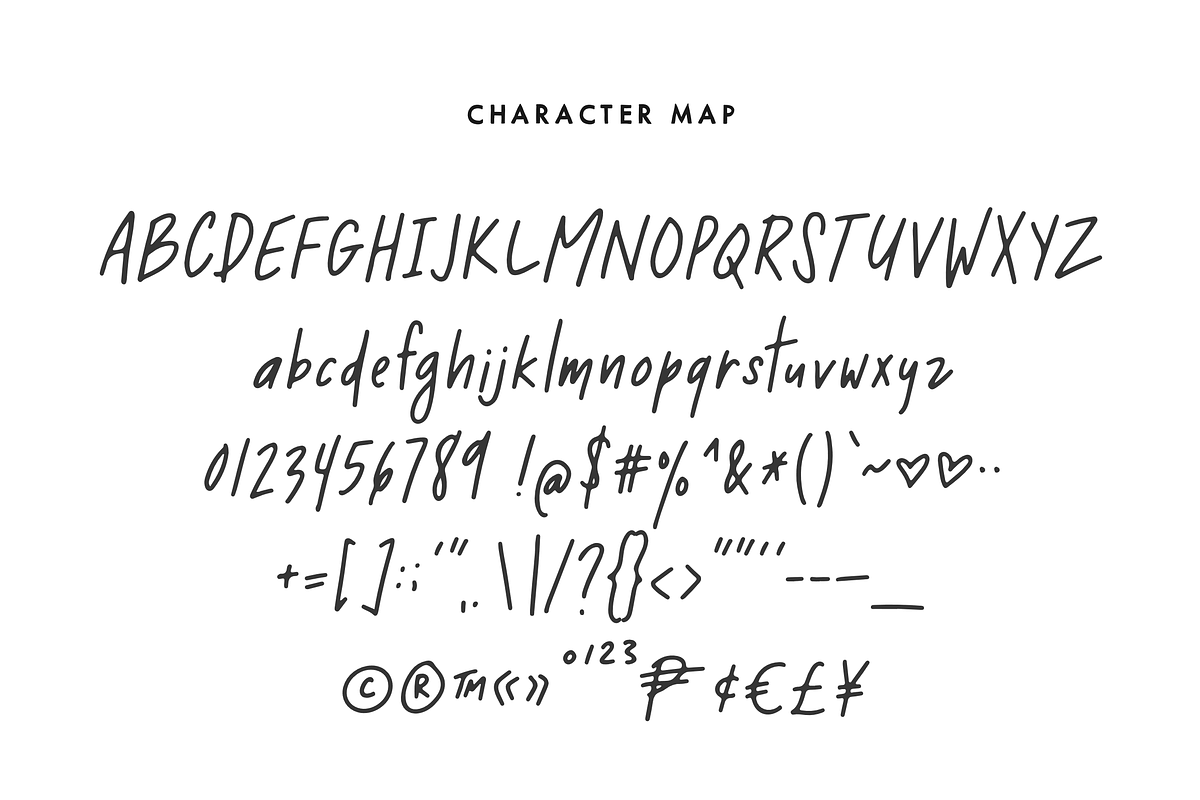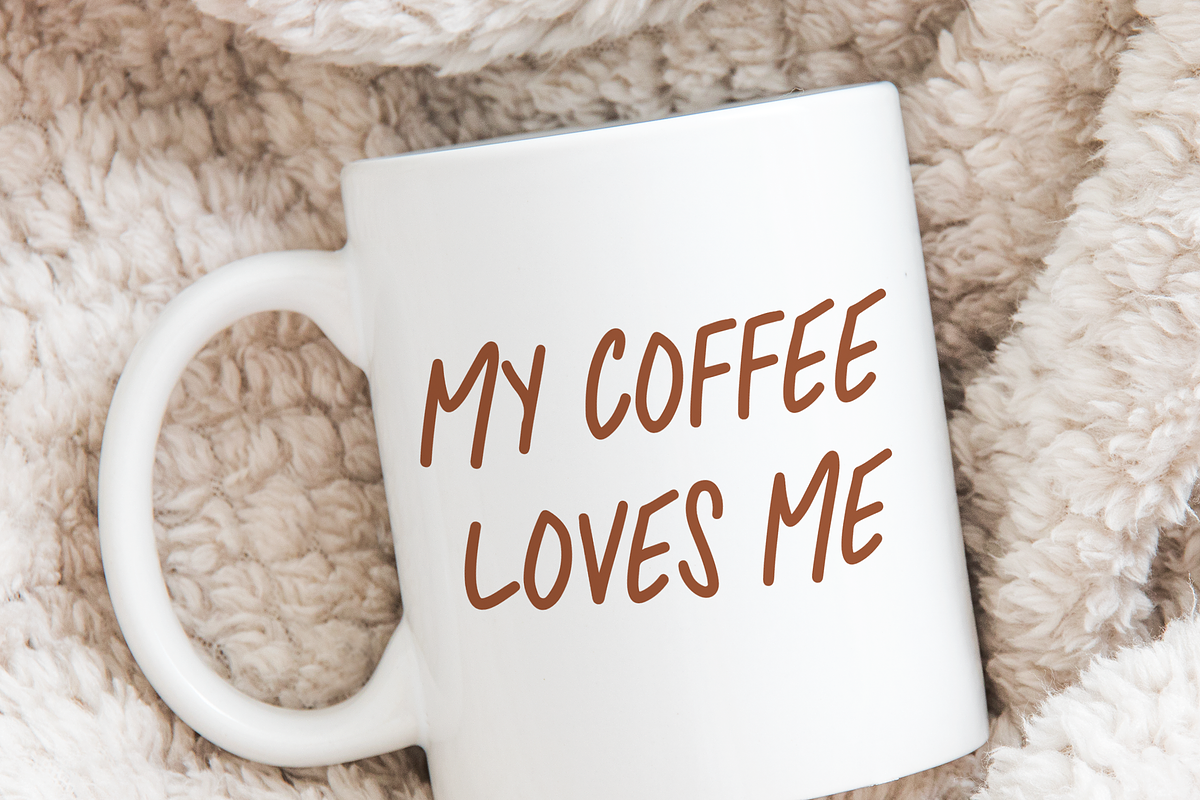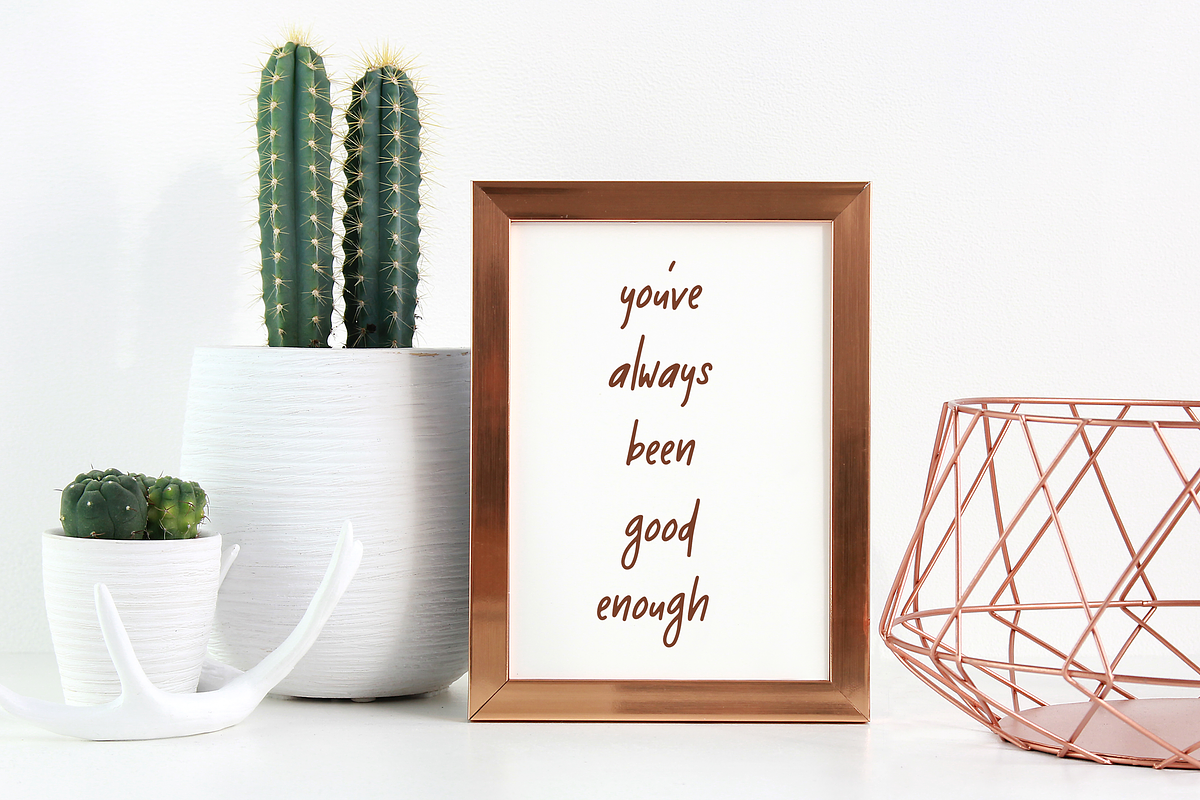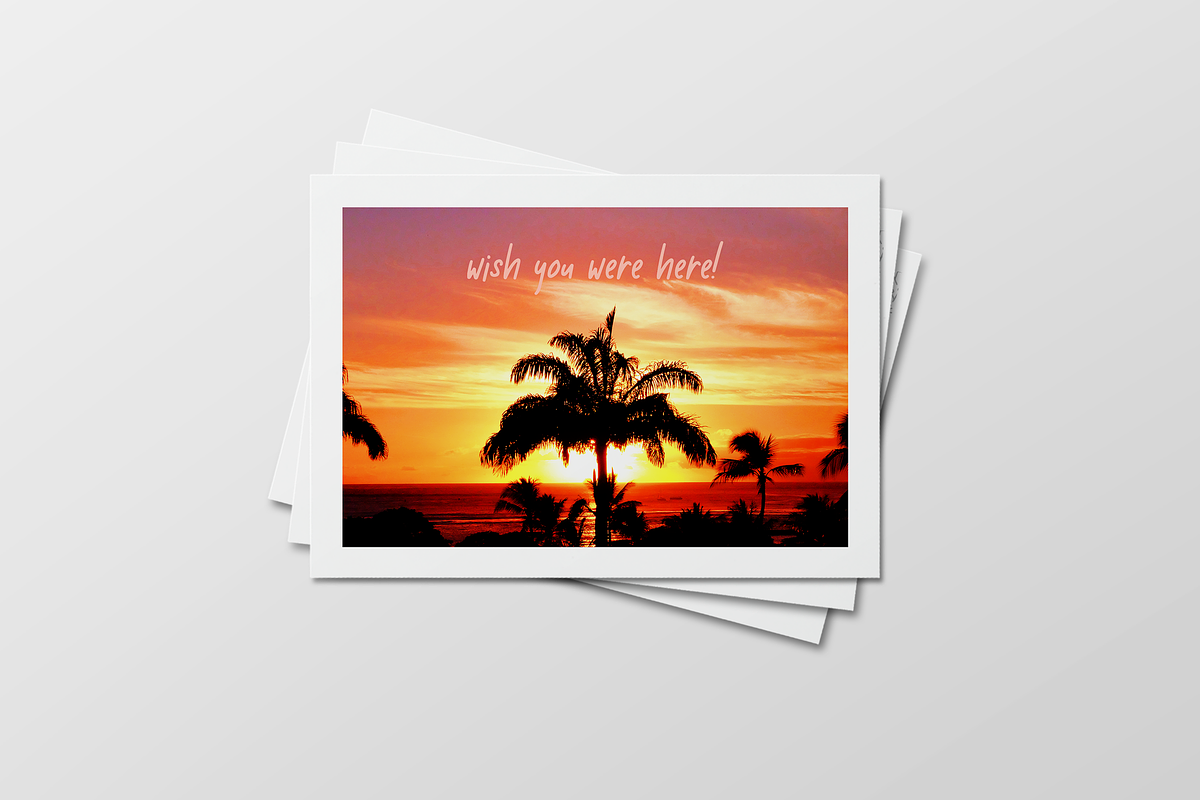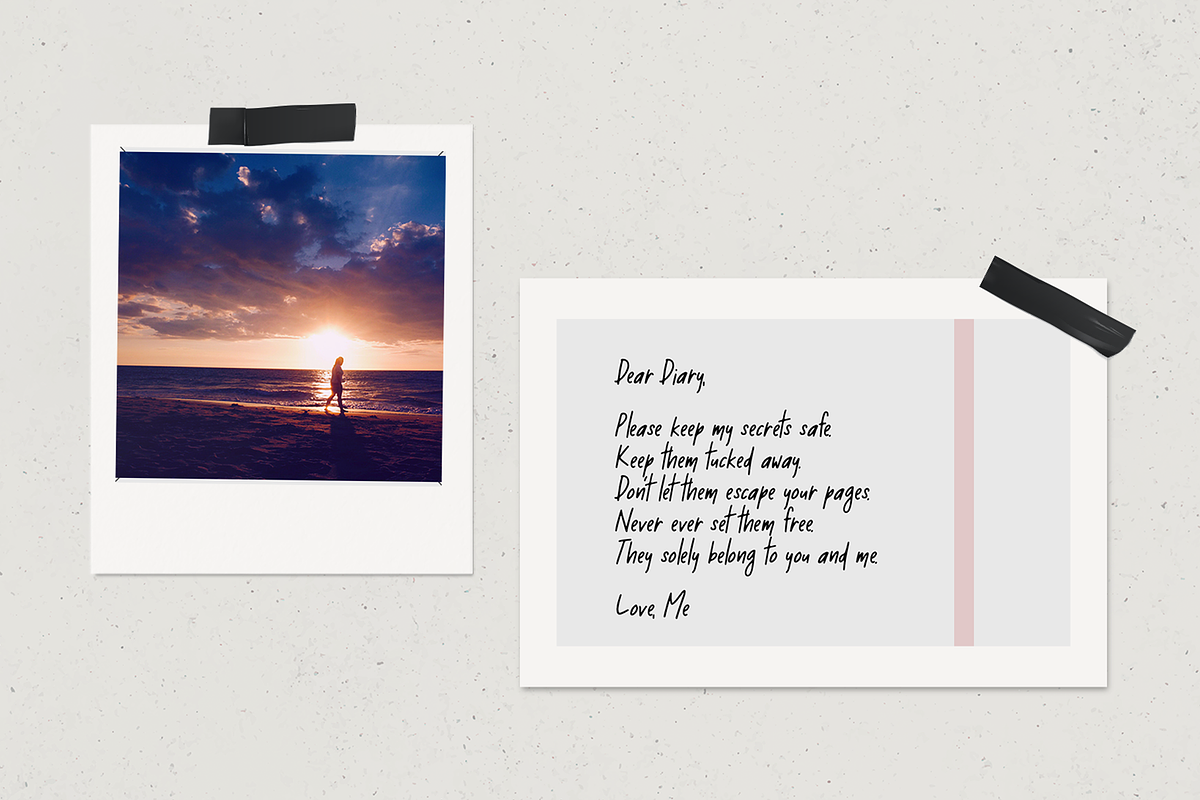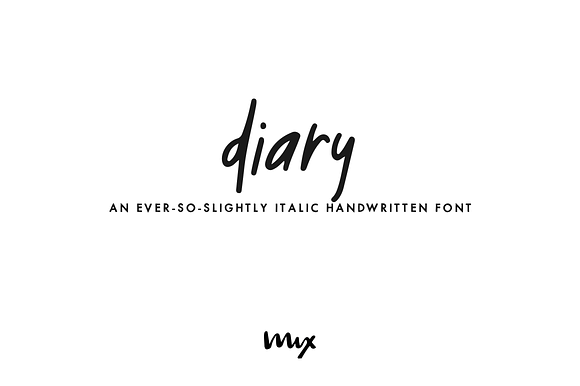
Diary — a Handwritten Font
MIX DIARY is a very personal handwritten font. It's reminiscent of my teenage scribblings, secrets I could never tell anyone, only seen on pages of my secret diary. The diary kept under lock and key.